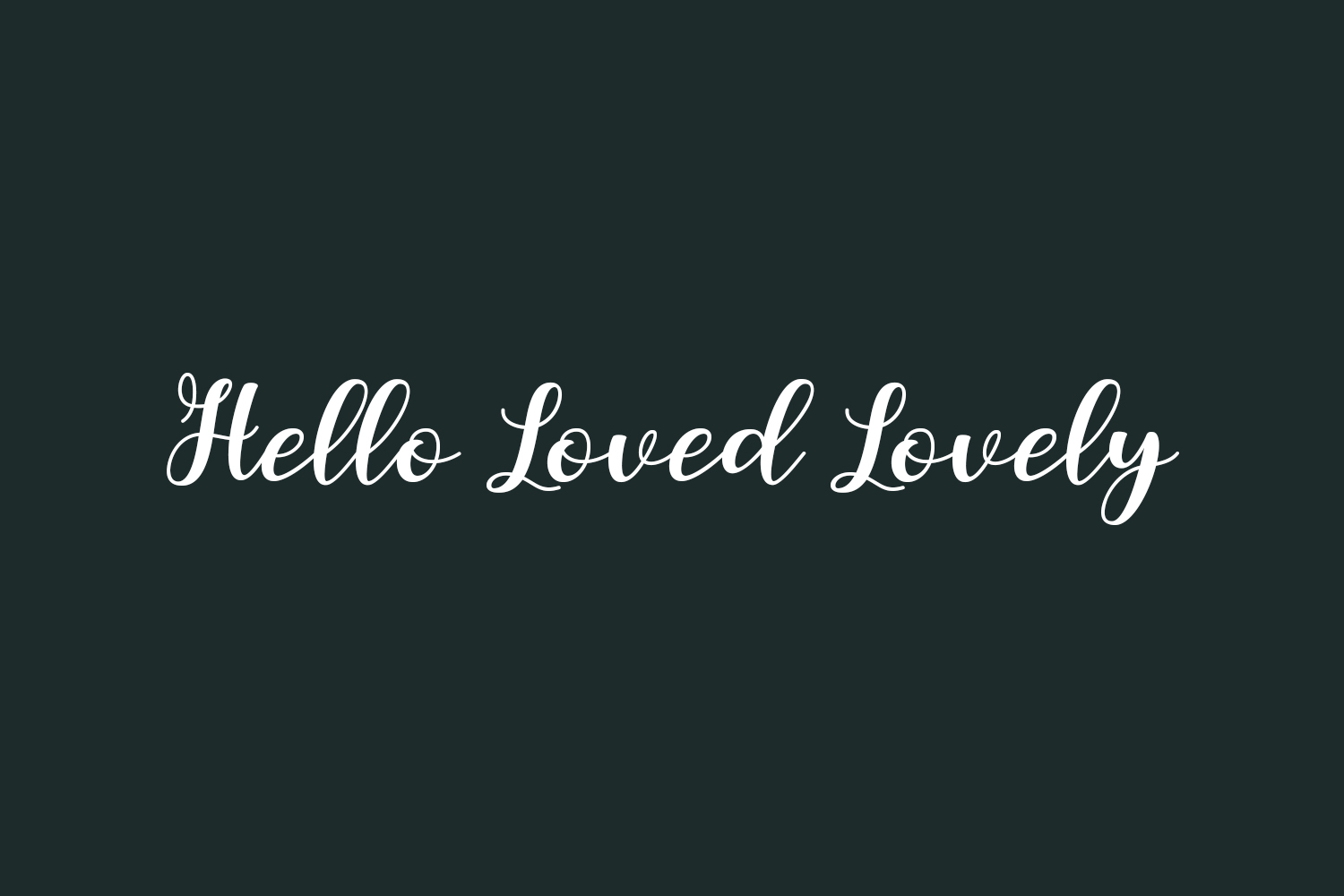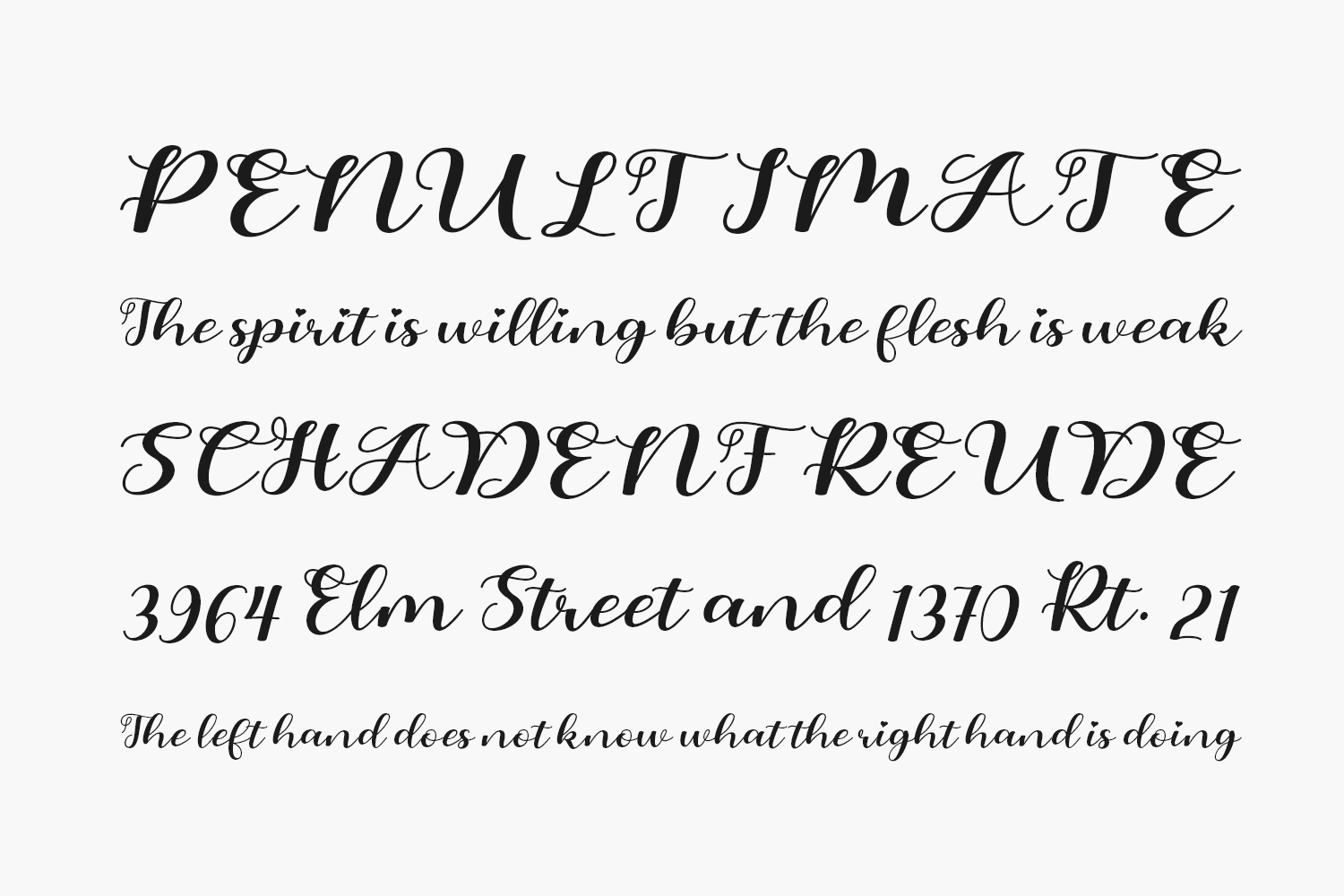
Introducing Hello Loved Lovely Free Font – a romantic and sweet calligraphy typeface that exudes elegance and charm, with characters gracefully dancing along the baseline. Elevate your design projects with a touch of luxury by incorporating this enchanting font. Watch as it adds a spark of sophistication to any creative endeavor you wish to create. Hello Loved Lovely Free Font is free for personal use only. Please purchase the full version for commercial use.
Designed by Cut Story